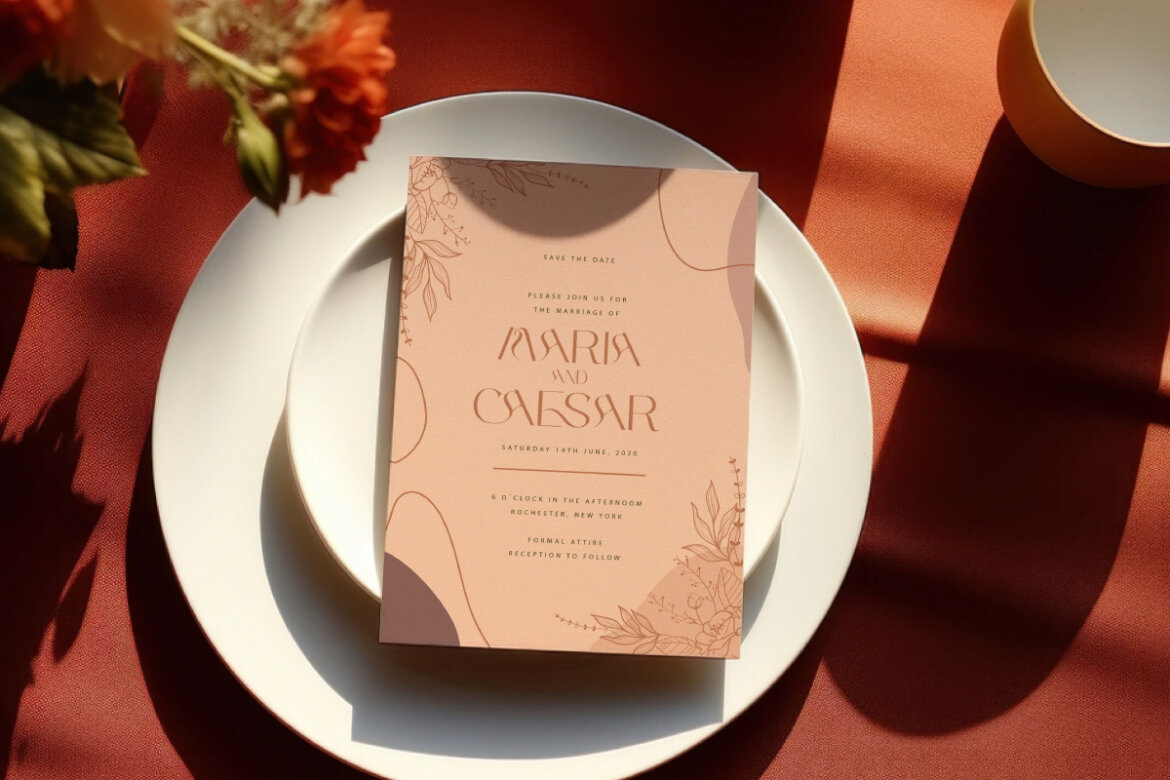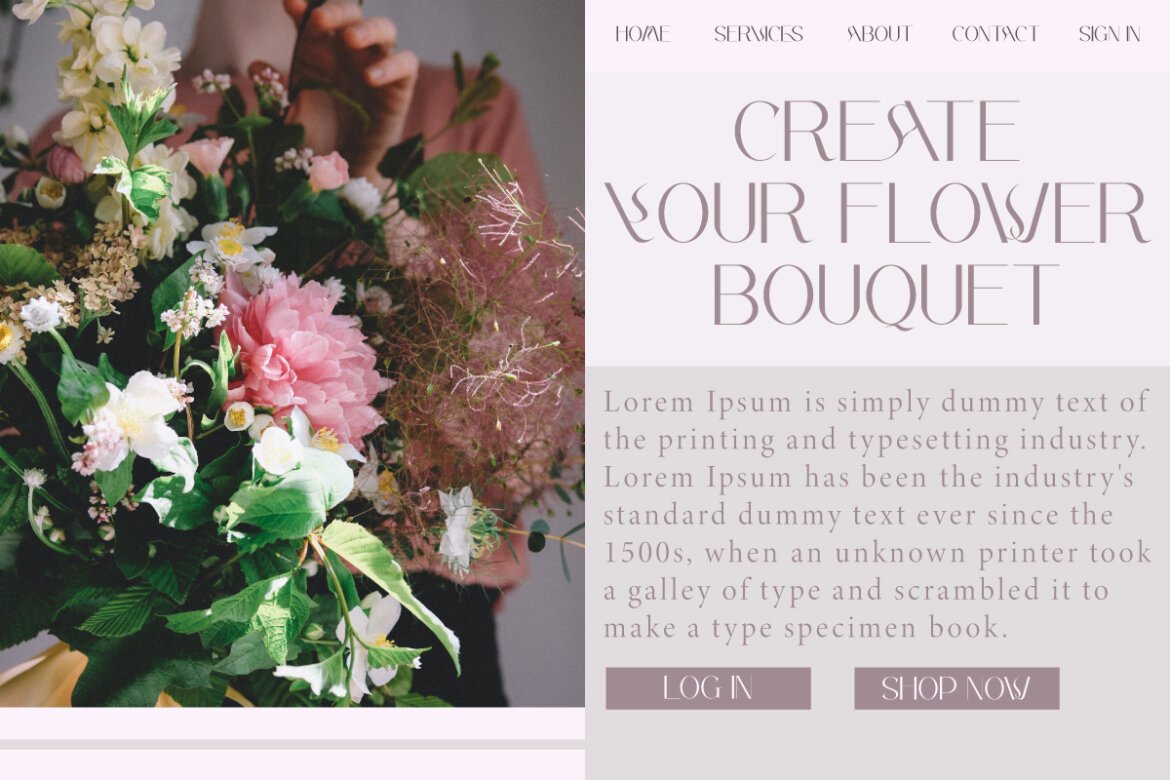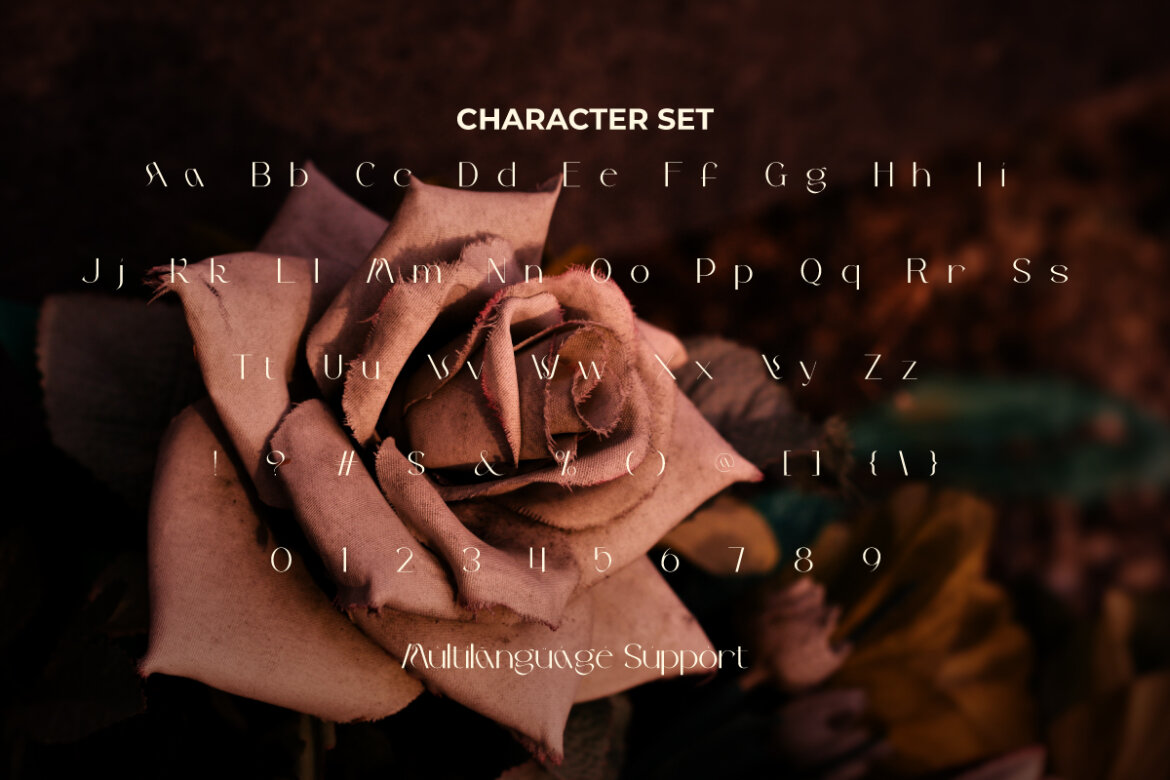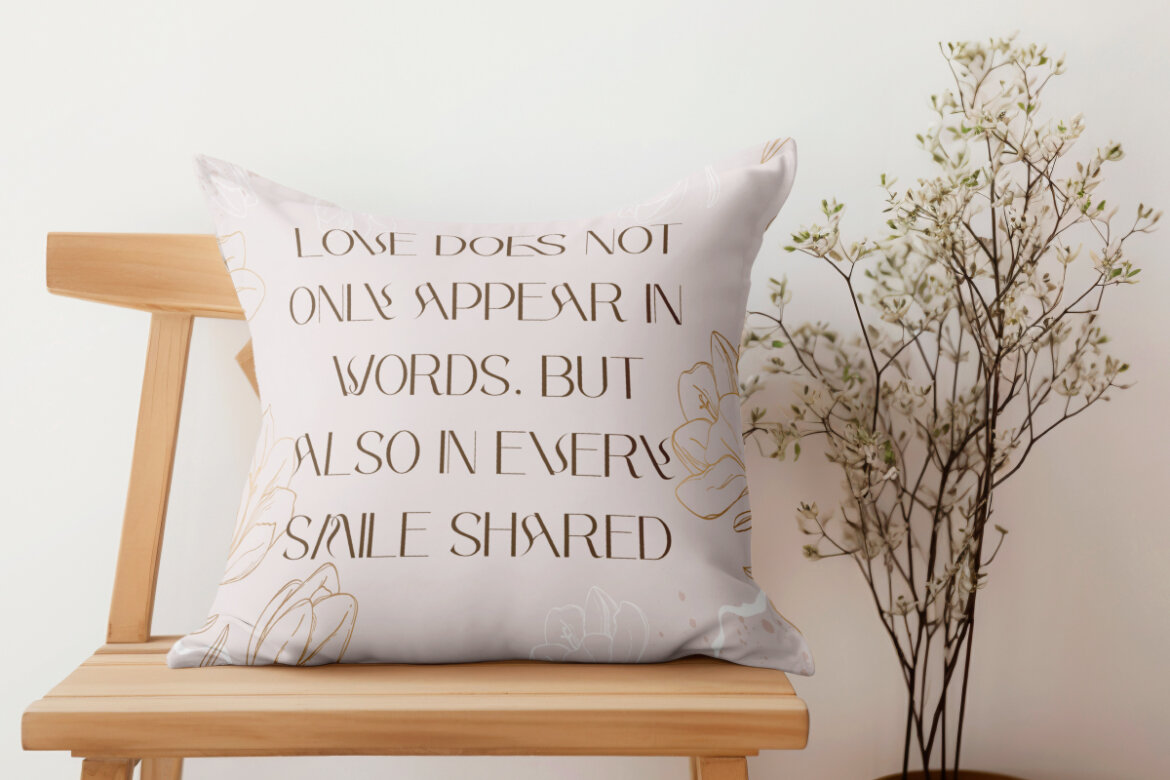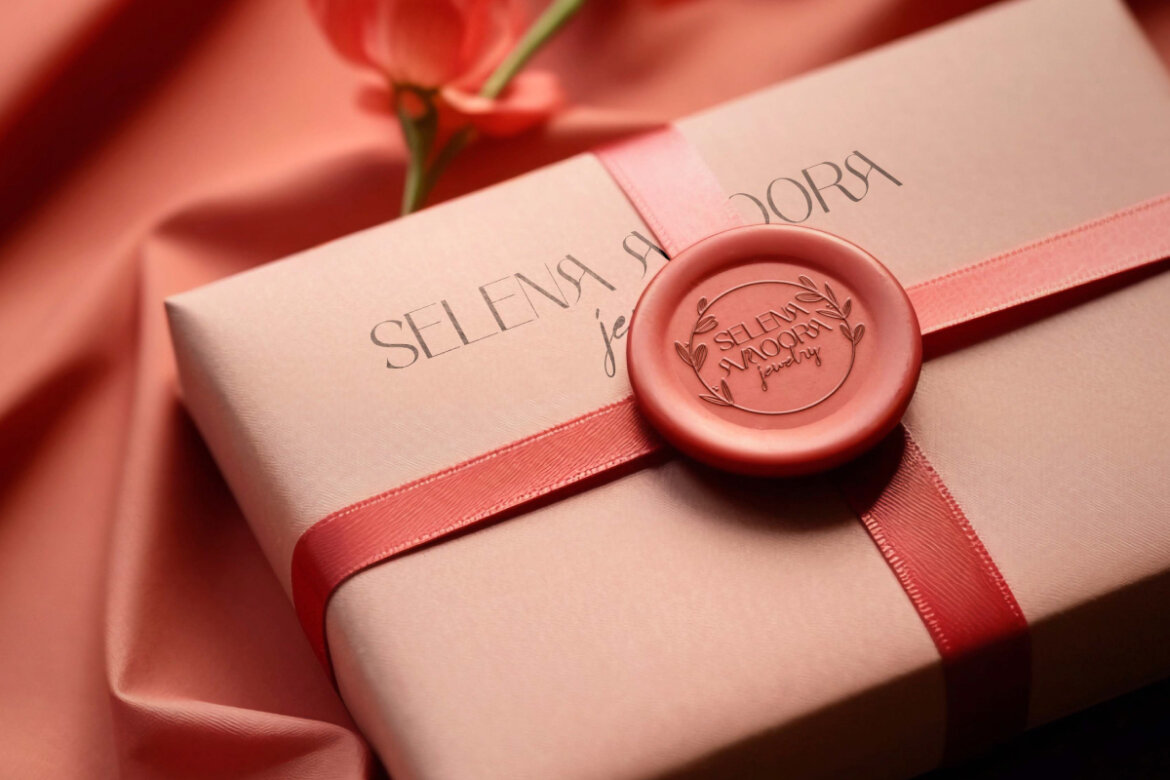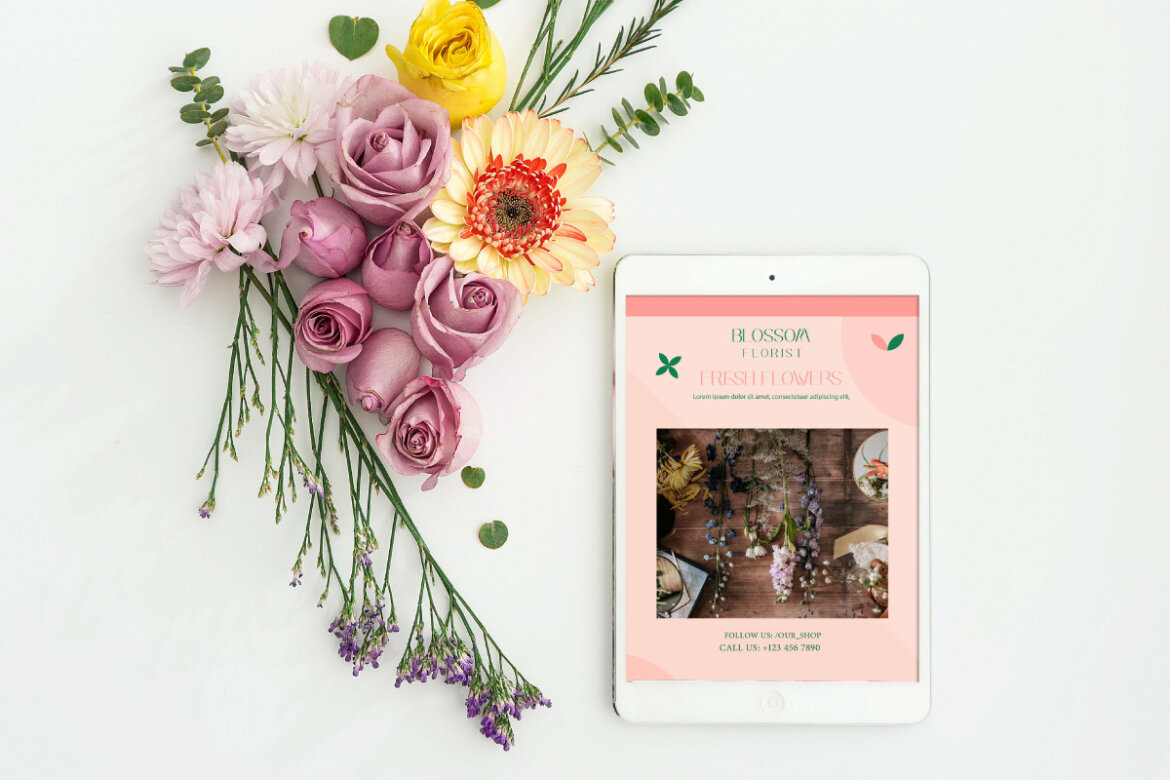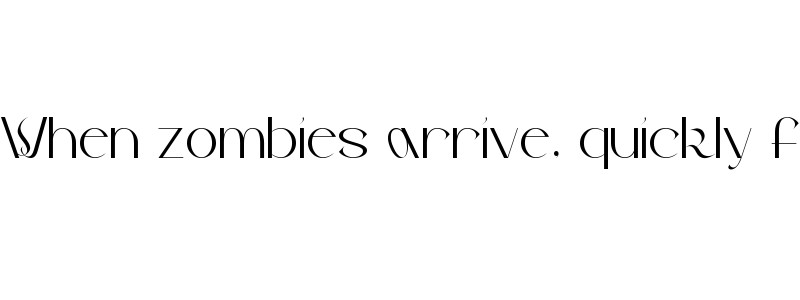
Leshila
Leshila Modern Font is a classy sans serif floral display font with blooming and elegant curves. The font with simplicity and sophistication blends harmoniously in the form of thick and thin lines that are visually appealing. Perfect for blogs, brand logos, cover, header, invitation card, labels, poster, product packaging, quotes, screen print, title, website header, and more. Leshila Modern Display Font Comes with a complete set of Uppercase and Lowercase Letters, Numbers, Punctuation, Symbols and Ligature. Take advantage of this exclusive font to add a personal touch to your designs. With its distinctive character and captivating typographic beauty, this font will leave a lasting impression and elegantly embody your brand vision. It’s perfect for ads, bouquet, content creator, florist, gifts, graphic design, printing, publishing, web designer, wedding organizer, etc. Here’s what you’ll get on the zip pack :
Leshila Modern Font a playful typeface with unique decoration in each character. Combine different characters for a bespoke, handcrafted feel. It’s tested to work well in the Adobe Apps (Illustrator, Adobe InDesign, Adobe Photoshop) even work on Microsoft Word. All of these characters are available through the glyph panel, moreover each letter has its own unicode (PUA) so you can access all the characters easily.